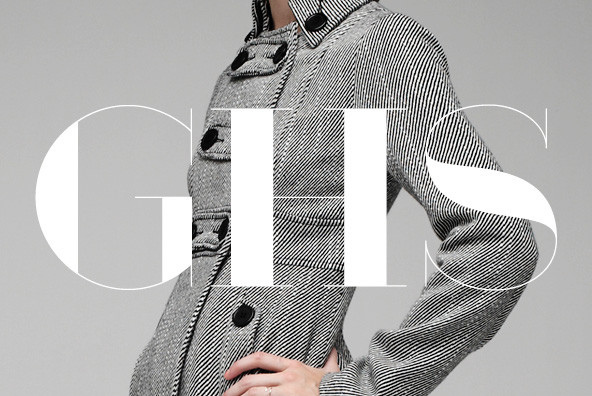
GHS Font
GHS Font is perfect for safety communications, hazard warning systems, industrial documentation, regulatory compliance materials, workplace safety signage, chemical industry branding, laboratory communications, and standardized advertising campaigns. This authoritative typeface works exceptionally well in both digital applications and print media where safety clarity and regulatory compliance are fundamental design requirements.
What makes GHS Font so exciting is its precise interpretation of safety communication standards through systematically designed letterforms that ensure maximum readability and universal recognition in critical safety environments. The font features clear characters with standardized proportions, safety-focused spacing, and regulatory details that communicate vital information, compliance standards, and the life-saving importance of clear hazard communication. Its authoritative personality and safety heritage make it ideal for organizations requiring compliance with global safety standards while appealing to audiences who depend on clear, accurate safety information for workplace protection.
The GHS Font family includes comprehensive weight variations optimized for safety applications, along with regulatory-compliant alternates and standardized symbols. Each style maintains the typeface's safety-focused character while offering extensive multilingual support, standardized numerals, regulatory punctuation marks, and special characters designed to enhance safety communications and compliance branding efforts across international industrial markets.
This remarkable typeface represents the perfect convergence of safety standards and contemporary typography for industrial and regulatory environments. Whether you're developing safety training materials, creating hazard communication systems, or designing regulatory compliance documentation, GHS Font Free Download delivers the safety authority and versatility needed for critical workplace communications. The font's regulatory focus makes it particularly effective for chemical companies, industrial manufacturers, safety organizations, and businesses prioritizing worker protection and regulatory compliance standards.
The precisely engineered safety construction and optimized regulatory performance in GHS Font ensure maximum clarity while maintaining standardized compliance across all safety applications. Its authoritative presence makes it ideal for safety branding, regulatory marketing materials, and compliance communications where its full safety-focused character can create life-saving clarity and establish immediate association with workplace protection and international safety standards.